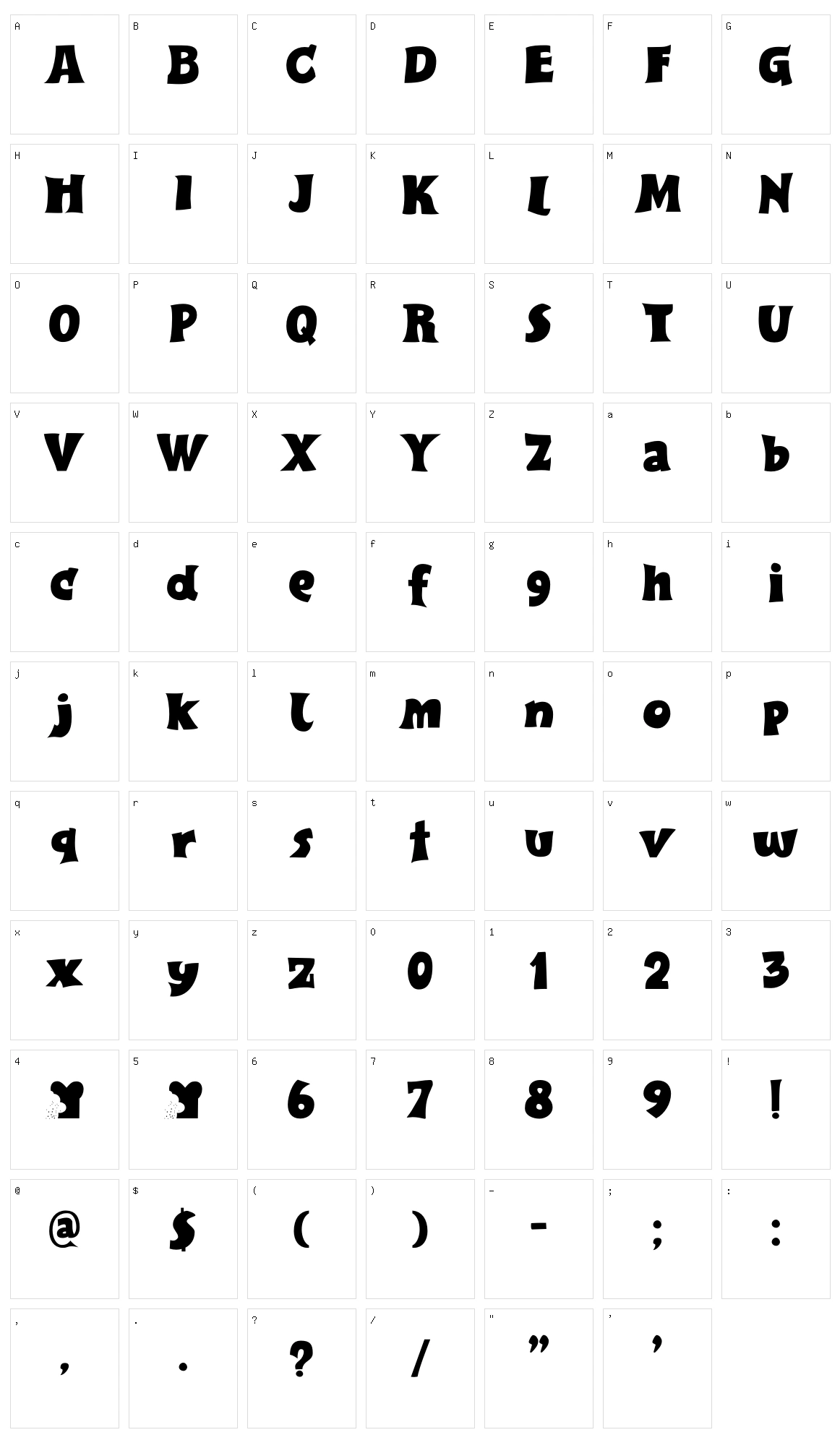
The free font Breadcrumbs is carefully designed by Hanoded, showcasing a thoughtful balance of creativity and usability and falls under the Cartoon font style. When you download the ZIP file, it contains only 1583.95 KB of font files, making it lightweight and quick to download. Please review the license details below to understand permitted usage and distribution rights. If license information is not available, we recommend using this font for personal projects only or contacting the author directly for commercial usage permissions.